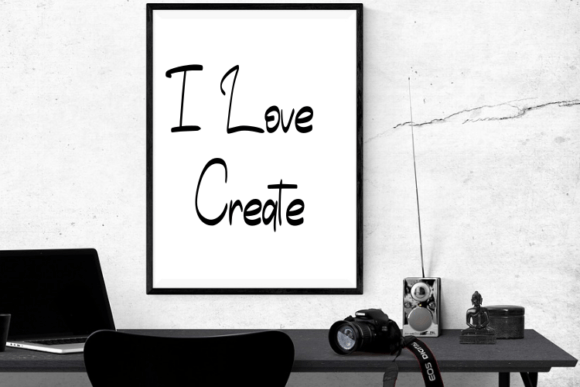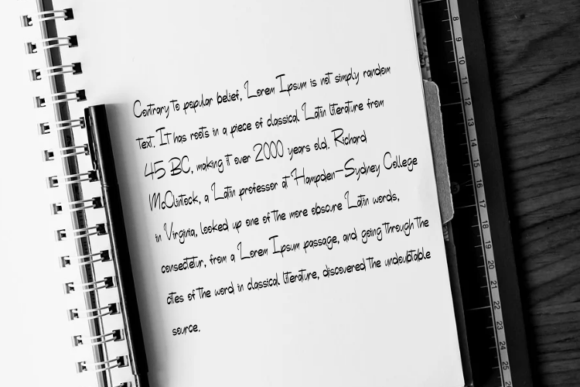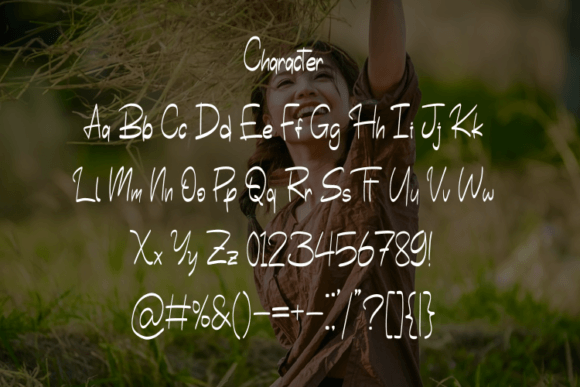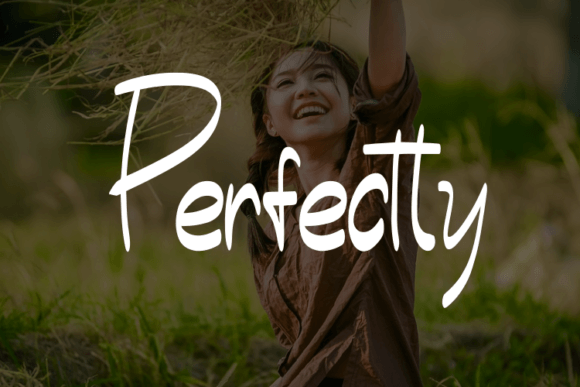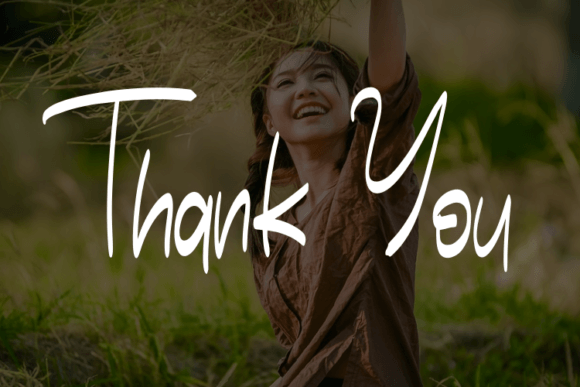
As a designer, there’s nothing quite like the thrill of bringing a creative vision to life. Whether you’re crafting a logo for a new business, designing a book cover, or working on a personal project, the right font can make all the difference. I recall a particularly memorable moment when I stumbled upon My Happy Font – a stunning script typeface that instantly captured my attention. Its simple yet modern style has a way of elevating any design, making it perfect for high-end logos, fashion brands, and even quotes.
Key Features of My Happy Font
- High-quality font design with a transparent background, perfect for creative projects.
- Designed with a playful and cheerful aesthetic, ideal for use in digital and print media.
- Perfect for designers and artists looking for a unique and creative design resource for their next project.
Honest Review: My Happy Font
I recently stumbled upon My Happy Font and was excited to give it a try. As a designer, I’m always on the lookout for high quality design resources that can elevate my creative projects.
Here are some of the features that caught my attention:
- Unique and playful letterforms
- Works well for headings and body text
- Perfect for branding and packaging design
Overall, I think My Happy Font is a great resource for designers who are looking for a fun and playful font to add some personality to their creative projects. While it may have some limitations, I think the pros outweigh the cons.
My Happy Font is a versatile and high-quality font perfect for any creative project. It features a transparent background, making it easy to customize and integrate into your design.
Getting the Most Out of My Happy Font
For optimal results, use My Happy Font in conjunction with a high-contrast color scheme and a clear, simple design. Experiment with different font sizes and styles to create a visually appealing design.
My Happy Font is perfect for a variety of creative projects, including:
- Infographics and data visualizations
- Marketing materials and social media graphics
- Wedding invitations and party decorations
Yes, My Happy Font is a high-quality design resource that has been carefully crafted to provide a unique and creative look for your projects. With its transparent background and clear typography, it’s perfect for use in a variety of design applications, from logos and branding to digital products and marketing materials.